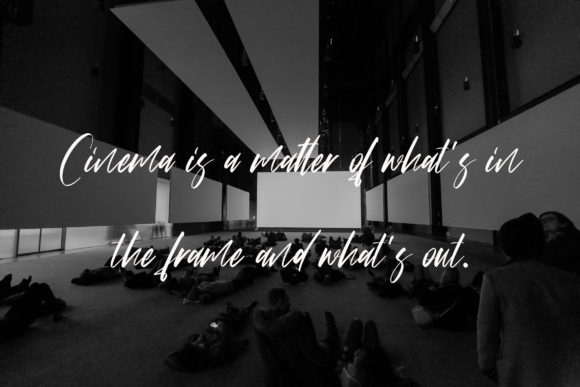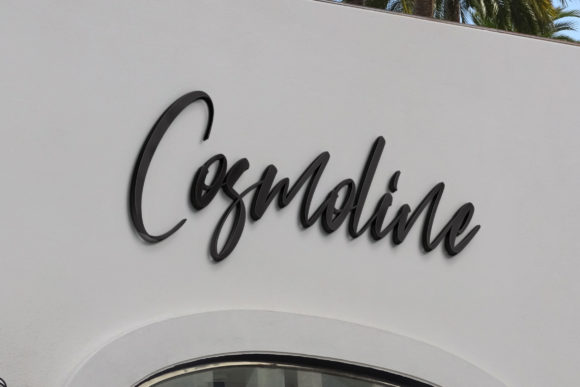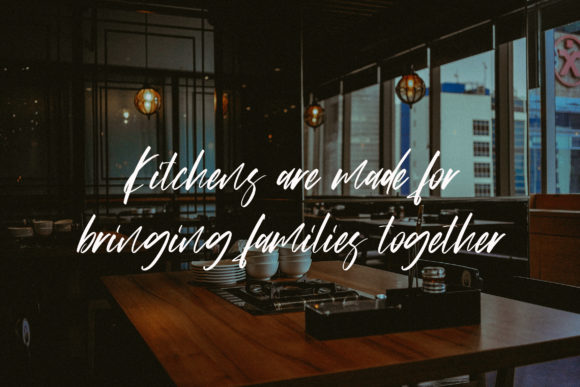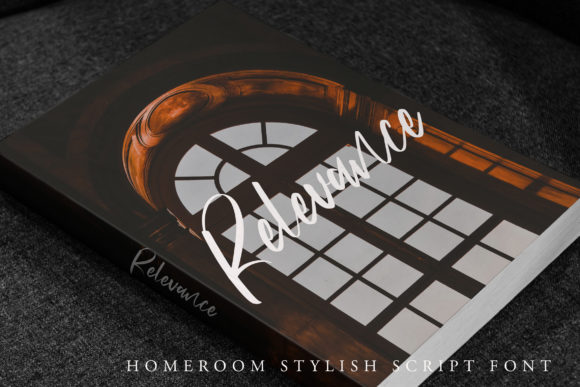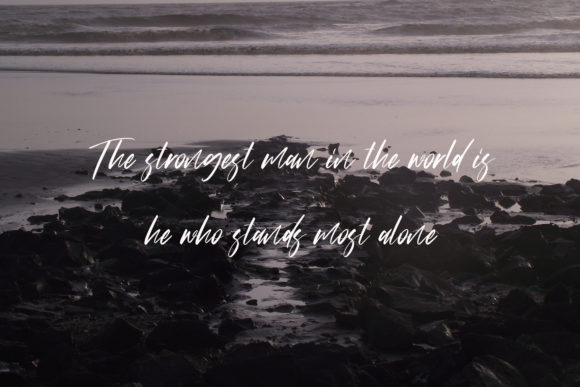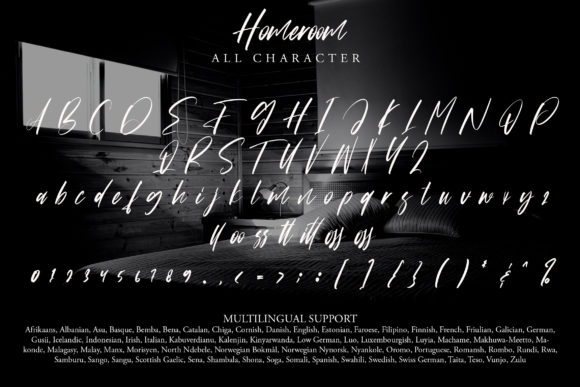
Introduction to Homeroom Font
Homeroom is a cool, stylish and asymmetrical handwritten font.
Add this cursive font to each of your trendy designs, and notice how it sets them apart .
Key Features of Homeroom Font
Why Choose Homeroom Font?